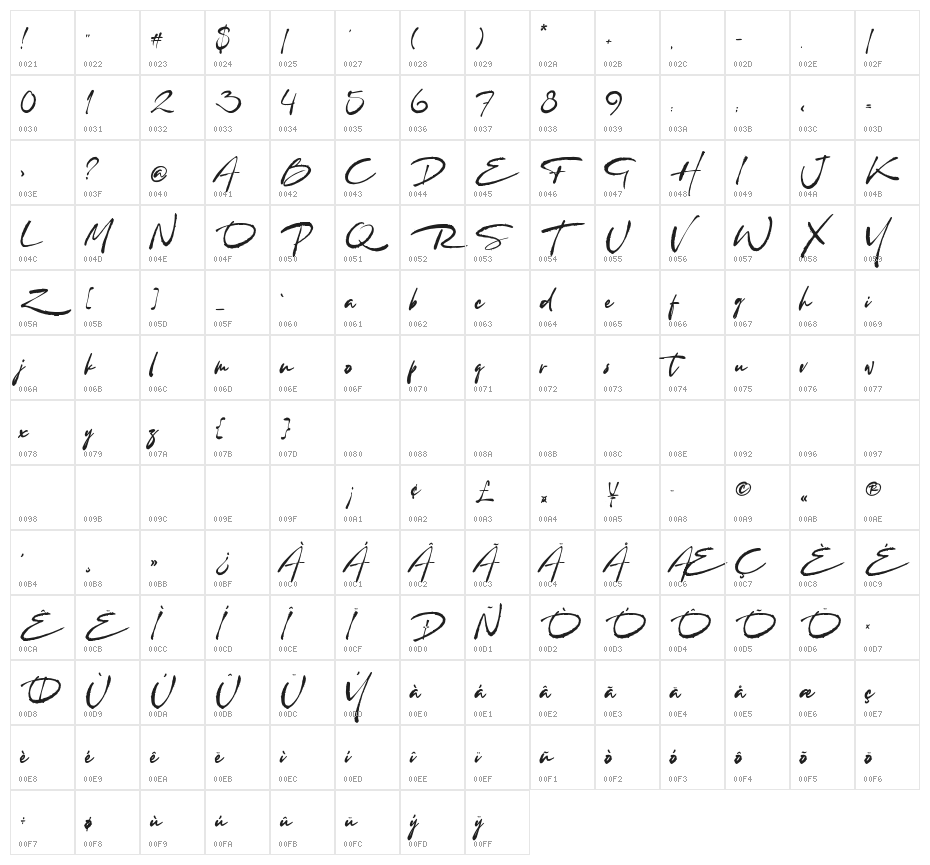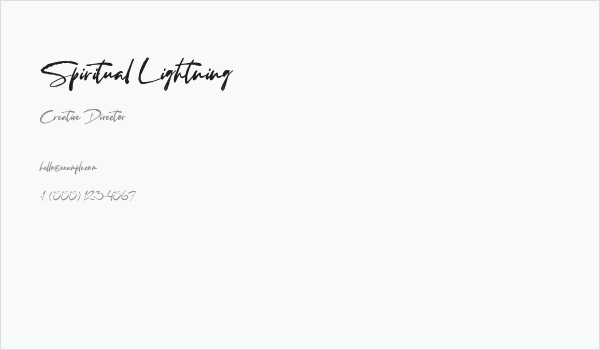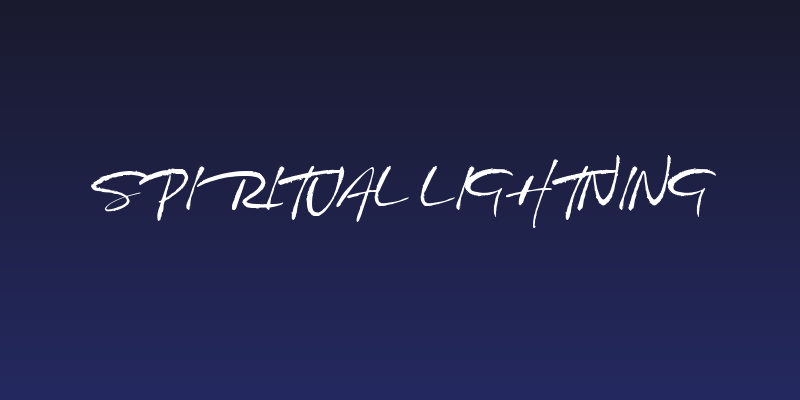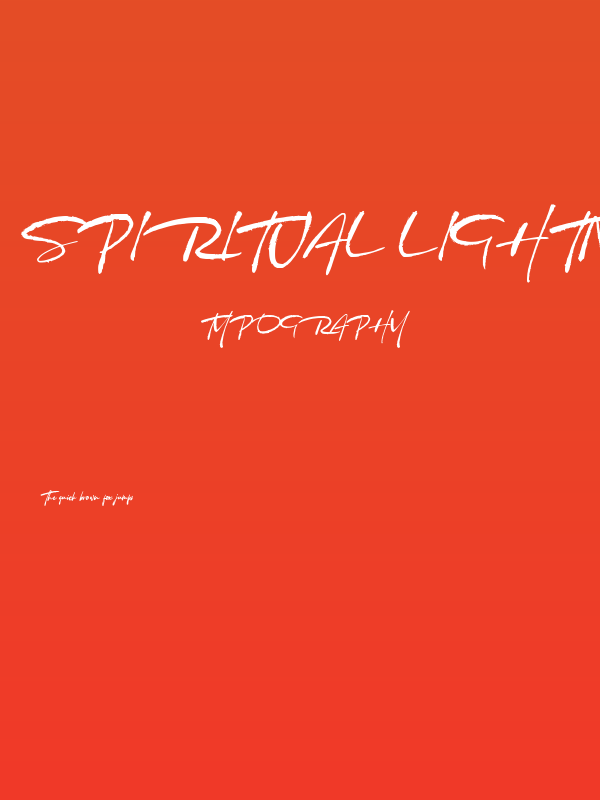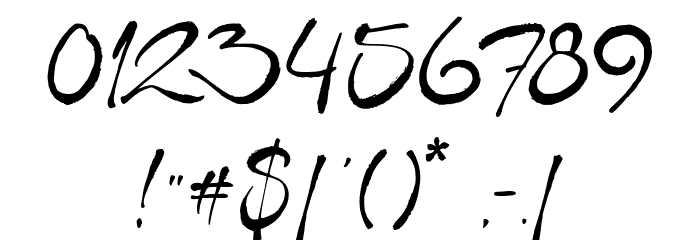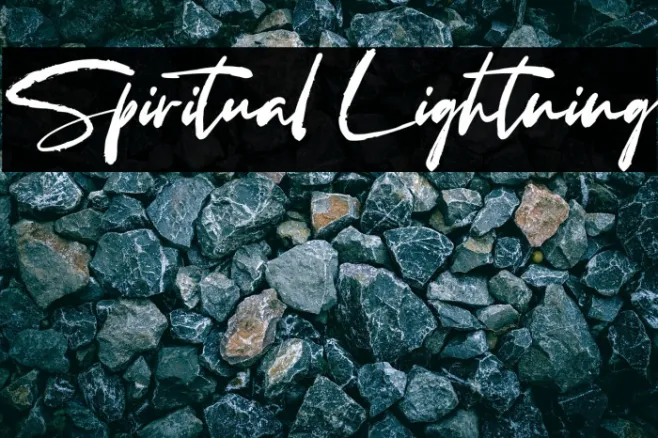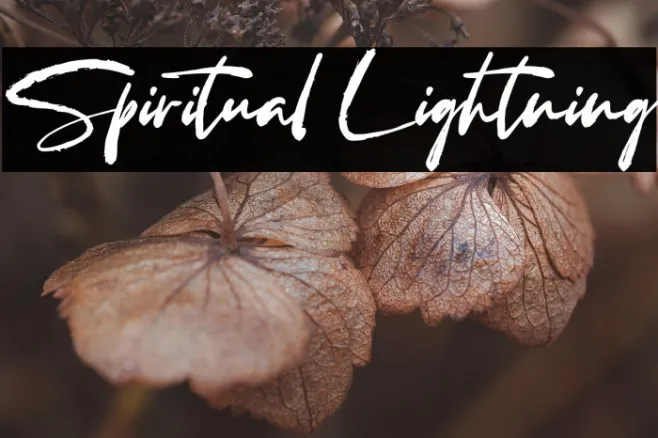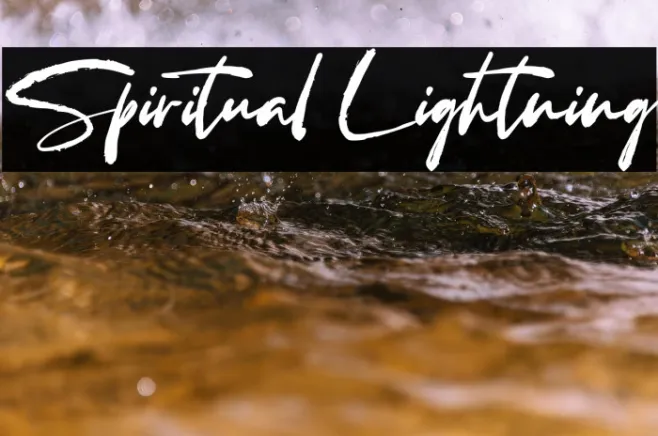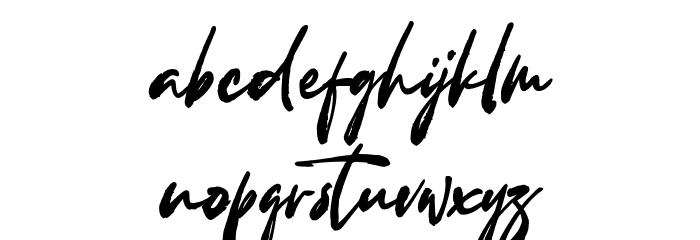
Spiritual Lightning Font
Spiritual Lightning Description
This font exudes a dynamic and expressive style, characterized by its fluid, handwritten appearance. The letters are crafted with a sense of motion, featuring sharp angles and varying stroke widths that add to its energetic feel. The uppercase letters are bold and sweeping, while the lowercase letters maintain a consistent flow, enhancing the overall cohesion of the font. The numerals are equally expressive, with a playful yet sophisticated design. Special characters are integrated seamlessly, maintaining the font's unique aesthetic. This font is ideal for projects that require a personal touch or a sense of spontaneity.